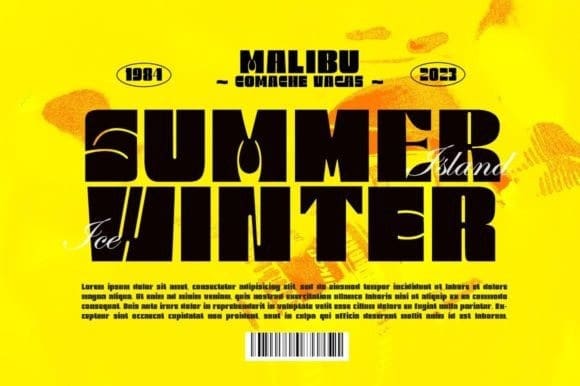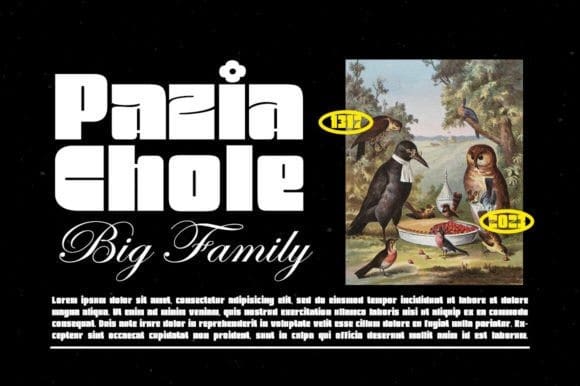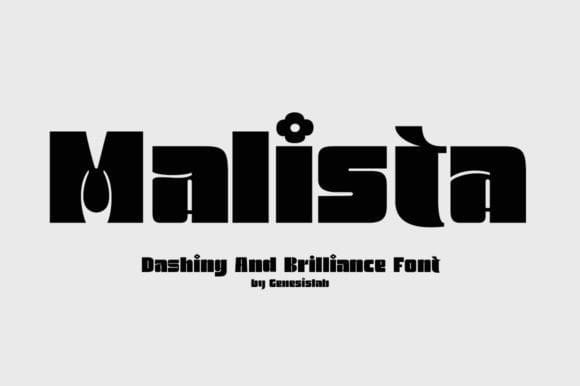
Malista Display Font
Malista Display Font is a large yet elegant Family display font. The unique and creative character according to today’s style will be very interesting for you to create any design work with a classy model while still maintaining a calm and classy style to look at.